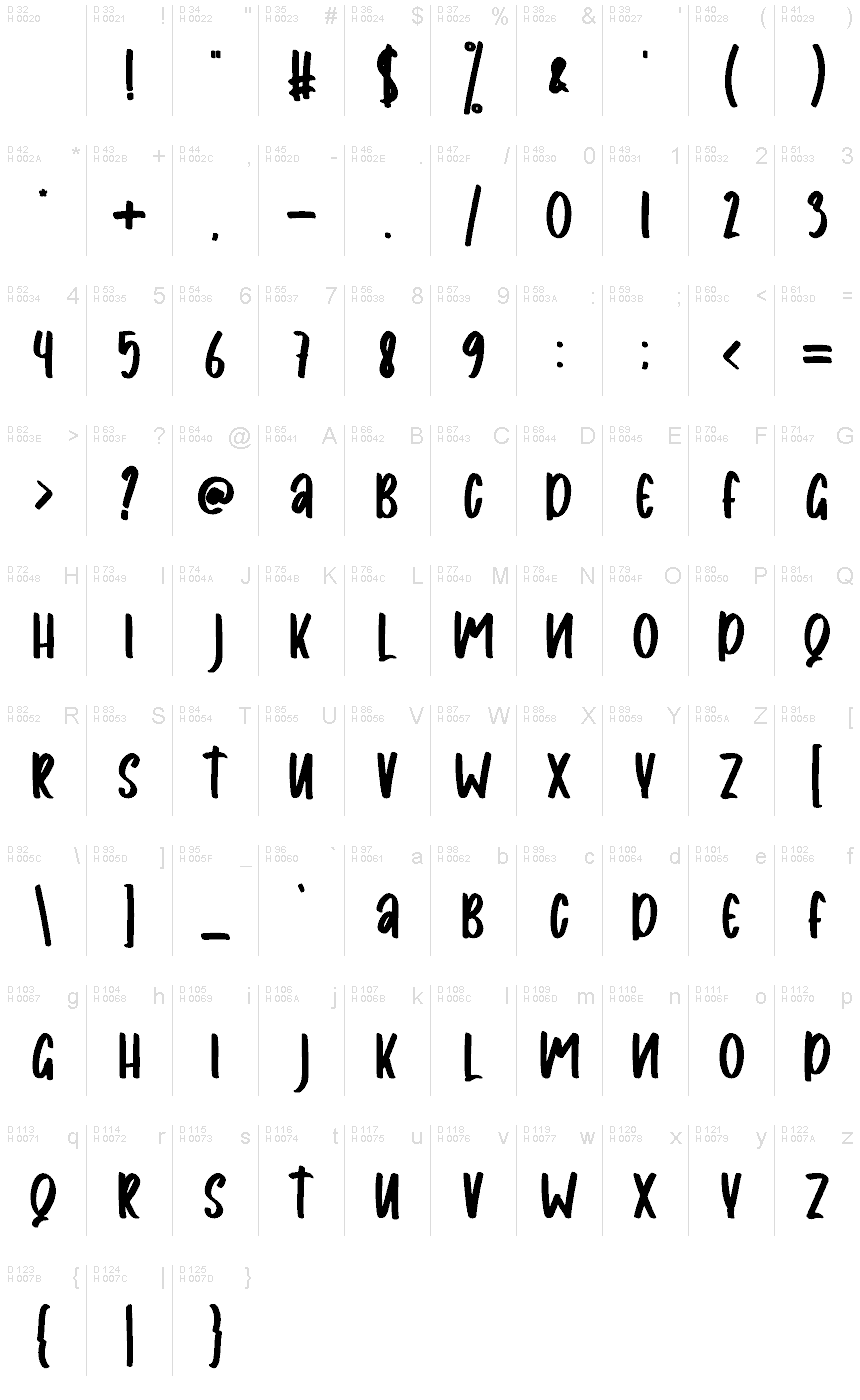
Dashaya
Dashaya font is a handwritten, stylish, and condensed free font from Skiiller Studio. The letters are expressive over the white background while a more casual look is adopted over textured backgrounds. This allows making elegant formats suited for different goals, all of which will feature an artistic flair and a modern aesthetic.
Use this approachable vibe font for dish packaging design particularly on juices, labels design for any type of products or minimalist websites that employ white backgrounds. Other suitable uses include brochures when wanting to establish connections with customers by using powerful words such as ‘You’ or ‘Us’.